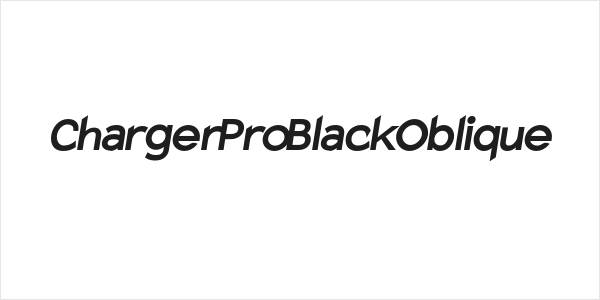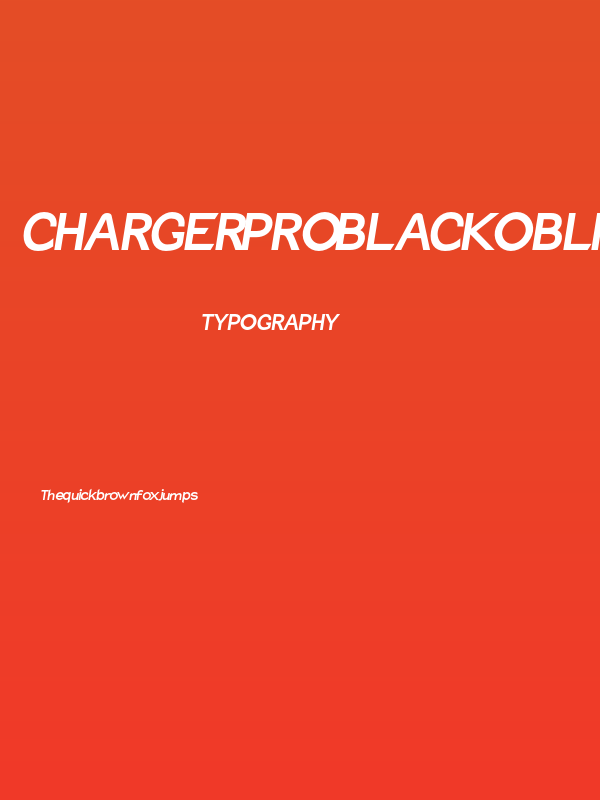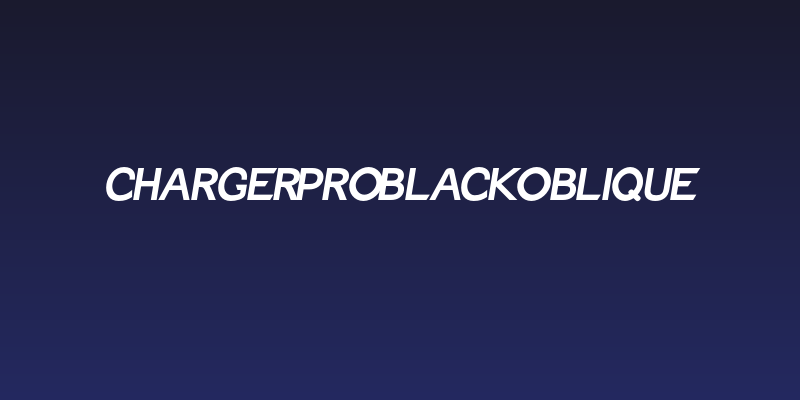
Charger Pro Black Oblique Font
Charger Pro Black Oblique Description
This font features a bold and dynamic style with a pronounced oblique slant, giving it a sense of motion and energy. The characters are thick and robust, providing a strong visual impact. The uppercase letters are slightly taller than the lowercase, maintaining a consistent width that enhances readability. The numerals are clear and distinct, matching the boldness of the alphabetic characters. Special characters are designed with the same boldness, ensuring uniformity across all glyphs. The overall appearance is modern and sleek, making it suitable for attention-grabbing designs.
| Proposed Projects | Ideal for sports branding, dynamic posters, modern advertising, and impactful headlines. |